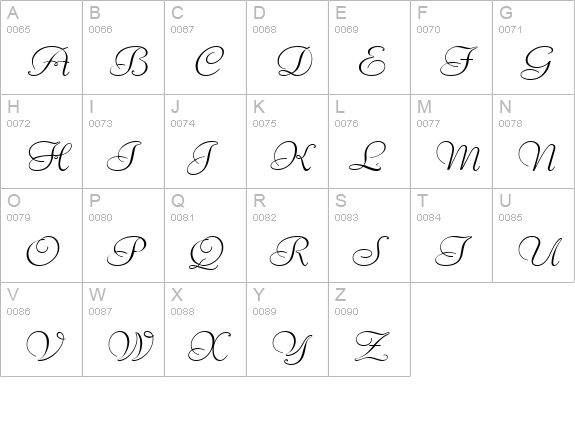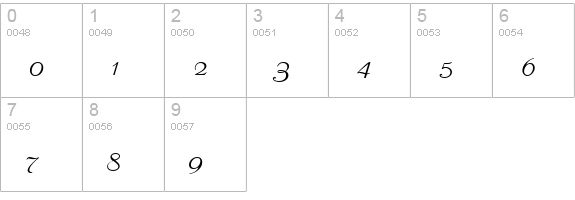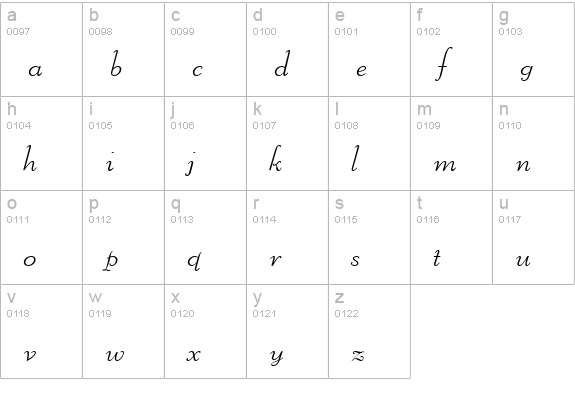
Liberate Wide Normal Font Details
Liberate Wide Normal is the standard, neutral, extended-width variant in the Liberate typeface family \xE2\x80\x94 well suited to general body text, paragraphs, and standard typographic work.
Liberate Wide Normal font is a modern and versatile typeface that embodies a sense of liberation and openness. With its clean lines and wide spacing, this font exudes a sense of freedom and creativity. The balanced and harmonious design of Liberate Wide Normal makes it perfect for a wide range of applications, from branding and advertising to editorial and web design. What sets Liberate Wide Normal apart is its ability to make a statement while remaining effortlessly readable. The bold yet elegant style of this font captures attention and conveys a sense of confidence and individuality. Whether used for headlines or body text, Liberate Wide Normal makes a strong visual impact that commands attention. And the best part? Liberate Wide Normal is freely available to download at FontsMarket.com. So go ahead and liberate your creativity with this stunning font that is sure to elevate your design projects to the next level.